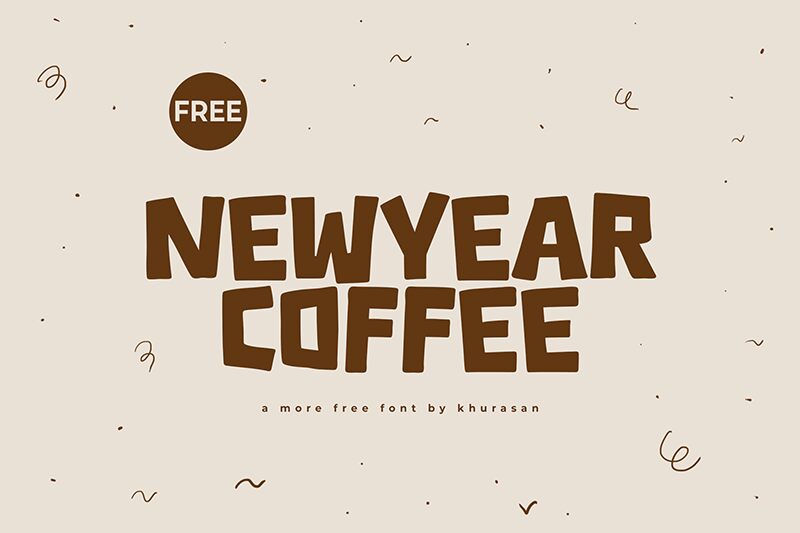
Newyear Coffee
Newyear Coffee font by Khurasan is a display cartoon typeface that embodies a geometric retro-inspired essence. The bold presence, paired with modern appeal and casual vibes, is a unique opportunity to send across the desired message in an impactful way.
The free font can be used for logos, branding projects, product packaging, advertising tools like flyers and posters, magazines headings or covers.